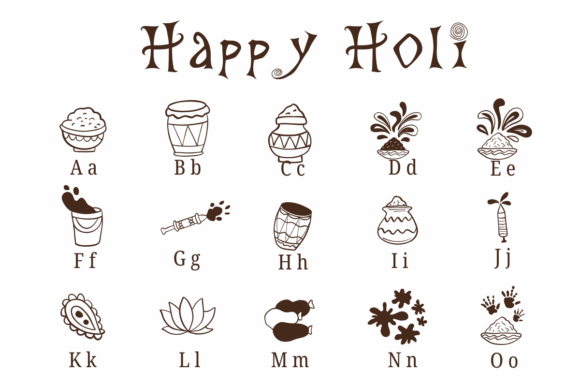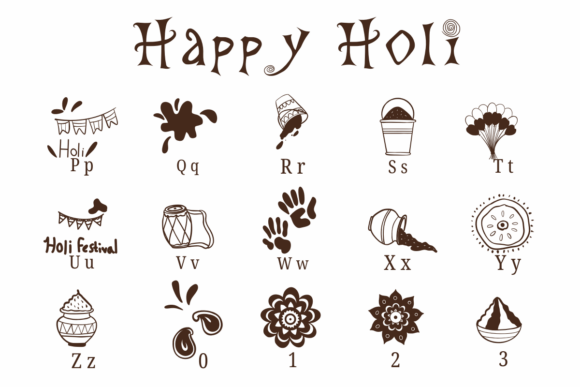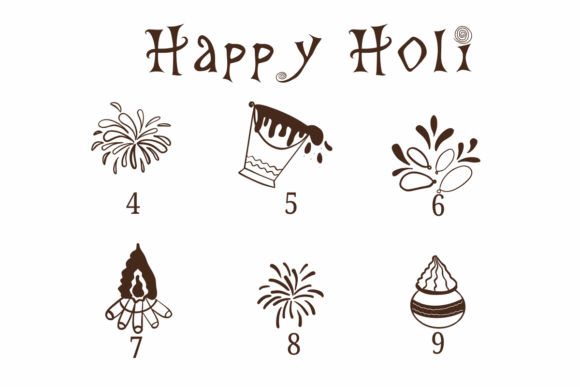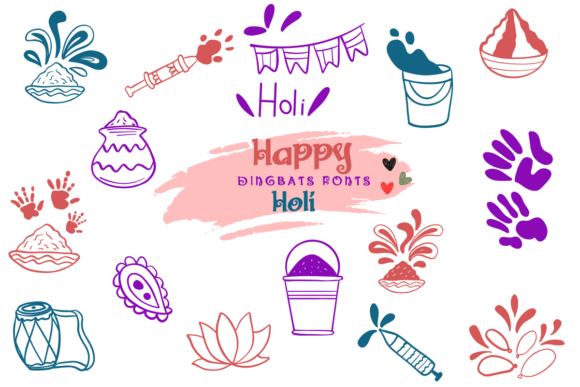
Introduction to Happy Holi Font
Happy Holi is a dingbats font with a festive theme.
This font can enhance your creative projects such as wedding invitations, DIY, crafts, decorations, logos, and many other creative ideas .